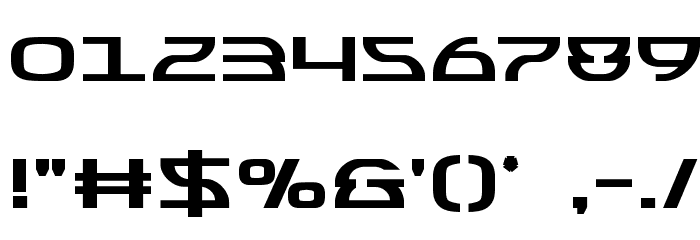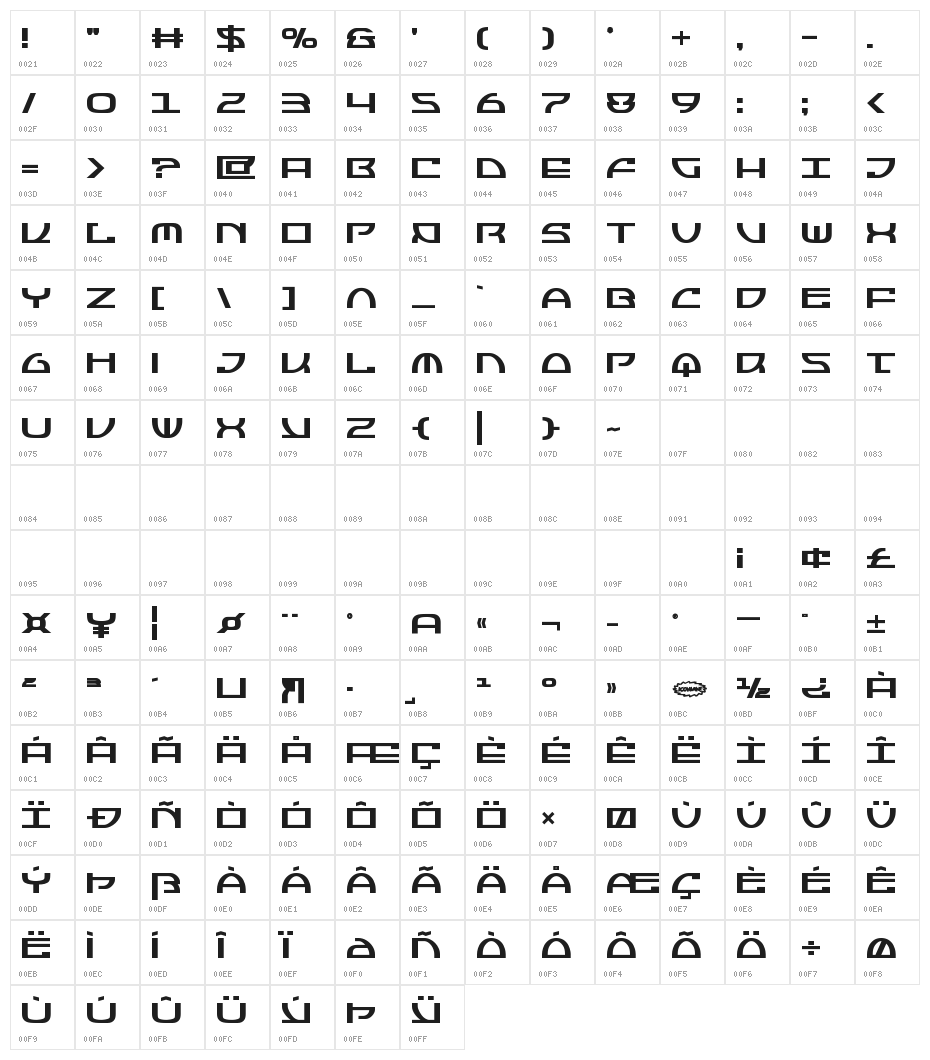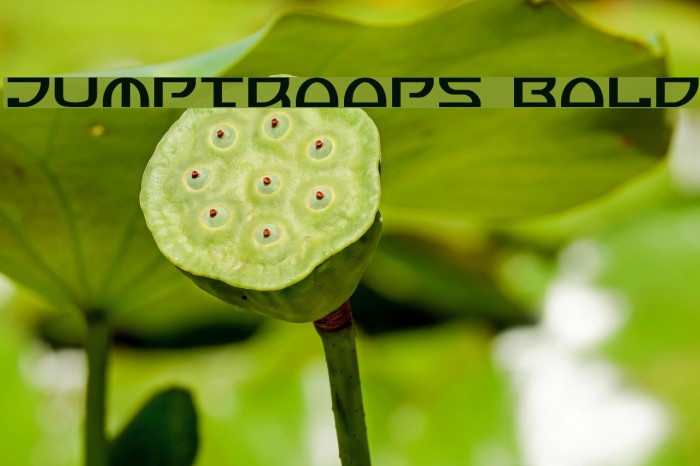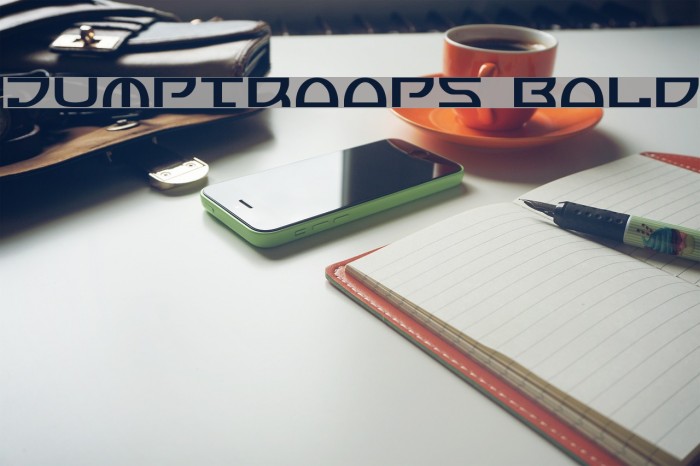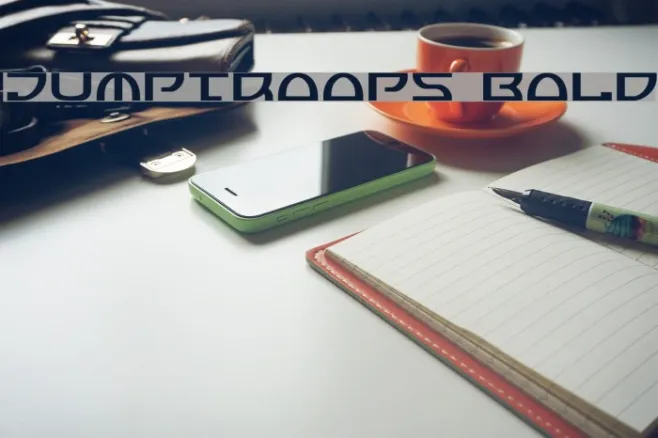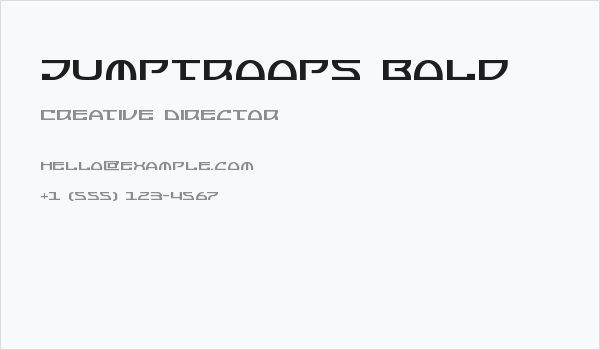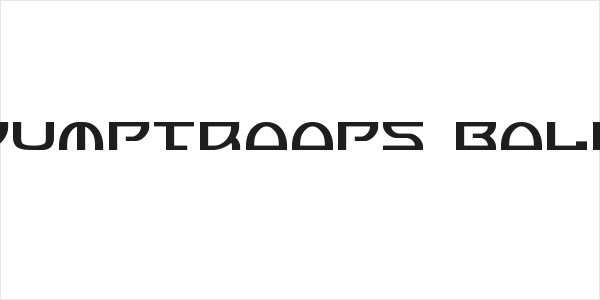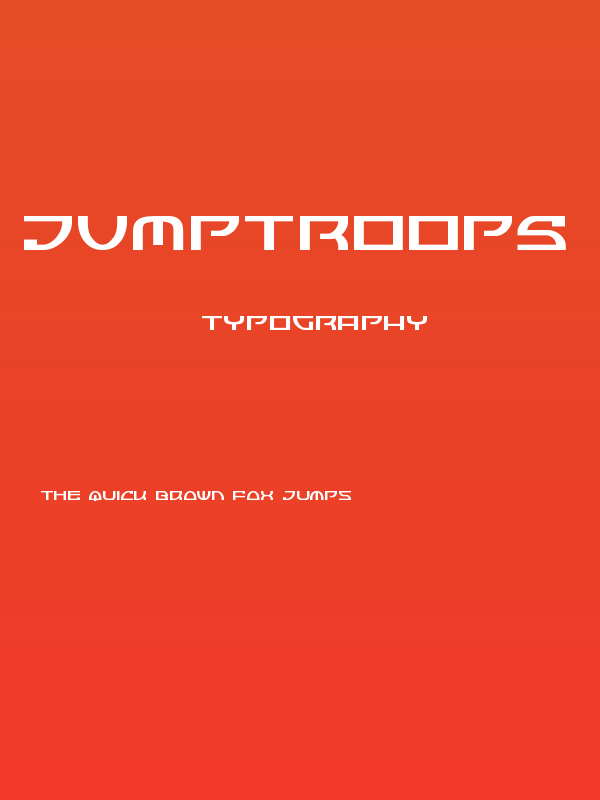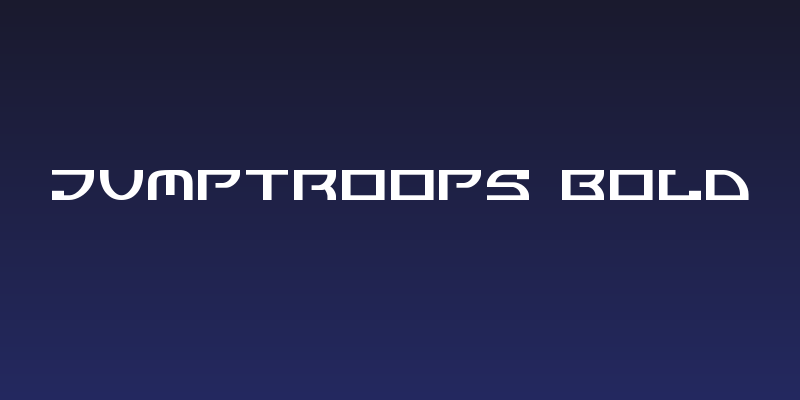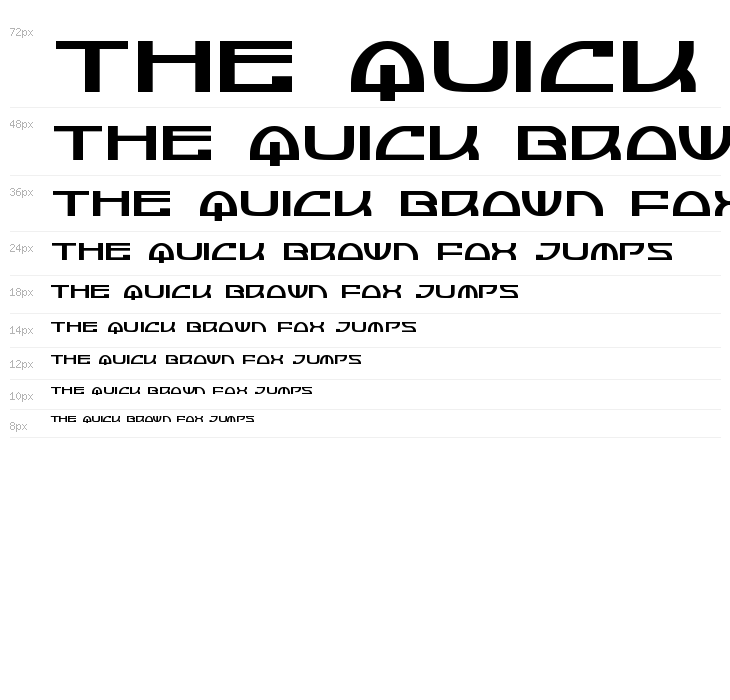
Jumptroops Bold Font
Jumptroops Bold Description
This font exhibits a bold, futuristic style with geometric elements. The characters are designed with sharp angles and clean lines, giving it a modern and tech-inspired appearance. The uppercase letters feature consistent height and width, while the lowercase letters maintain a similar structure, ensuring uniformity across the typeface. The numerals are distinct and easily readable, complementing the overall design. Special characters are crafted to match the font's aesthetic, making it versatile for various applications. The font's boldness and unique style make it suitable for projects that require a strong visual impact.
Proposed ProjectsIdeal for technology branding, sci-fi posters, video game titles, and modern advertising.